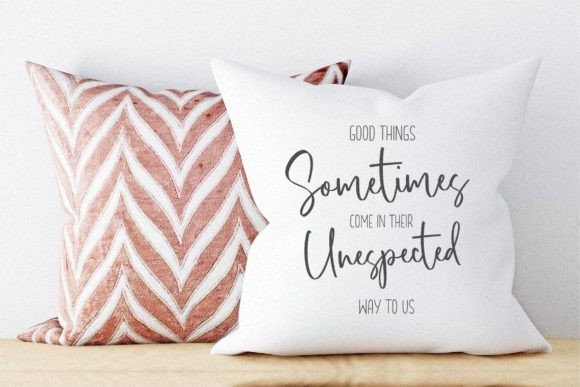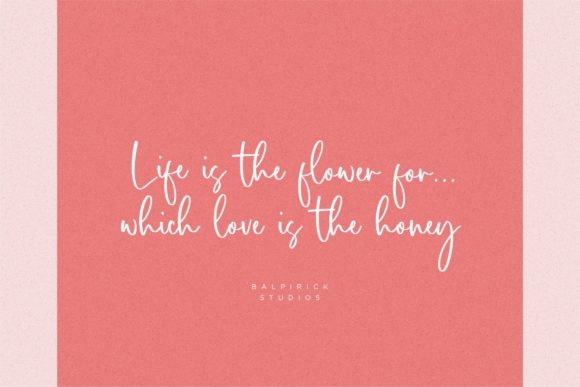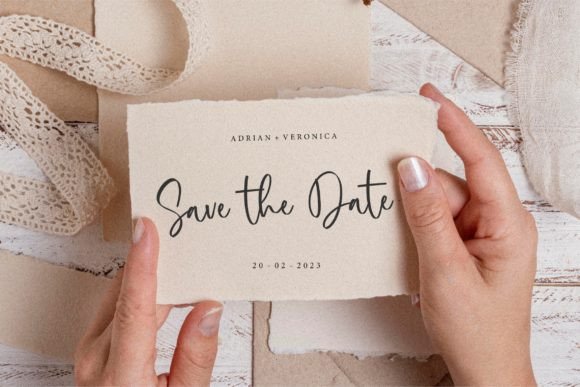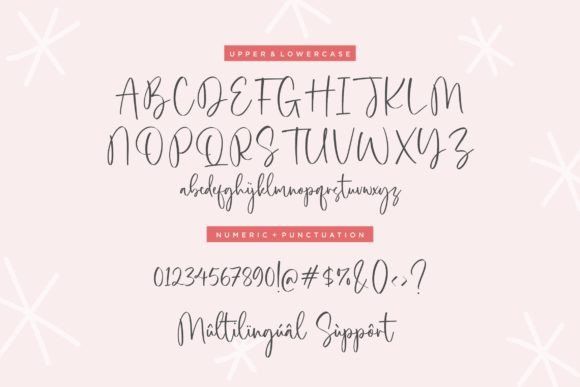
Discovering the Perfect Font for Every Occasion
Have you ever stumbled upon a beautiful handwritten font while browsing through design resources, and suddenly, a creative idea pops into your head? You can almost envision the perfect project – a wedding invitation, a birthday card, or a heartfelt letter – all thanks to the elegance and charm of that one special font.
That’s exactly what happens when you come across the Crimson Bouquet Font, an exquisite and delicate handwritten font designed to capture the essence of sweetness and refinement. Whether you’re a seasoned designer or a crafty enthusiast, this font is sure to become your go-to choice for any occasion.
As a designer, you understand the importance of having a versatile font that can elevate your projects and make them truly special. The Crimson Bouquet Font is a valuable addition to your design toolkit, offering a unique and elegant touch that’s sure to impress.
Crimson Bouquet Font Key Features
- Font Family: Crimson Bouquet
- Character Count: 1024 characters (including uppercase and lowercase letters, numbers, and punctuation)
- Unique Characteristics: Elegant and luxurious design, perfect for wedding invitations, greeting cards, and other special occasions
Crimson Bouquet Font Review
I recently had the chance to work with the Crimson Bouquet font, and I must say, it’s a unique and elegant addition to any design project. Here’s my honest take on this beautiful font.
- The font’s intricate design and subtle flair make it perfect for adding a touch of sophistication to your designs.
- The font’s high x-height and compact letterspacing make it easy to read, even in smaller font sizes.
- The font’s versatility makes it suitable for a wide range of projects, from wedding invitations to luxury branding.
- The font’s ornate design may not be suitable for projects that require a more minimalist or modern aesthetic.
- The font’s compact letterspacing may not be ideal for projects that require a lot of text, as it can make the text appear crowded.
Overall, I think the Crimson Bouquet font is a great addition to any designer’s toolkit. While it may have some limitations, its unique design and versatility make it a great choice for a wide range of projects. With some careful consideration of its limitations, I think this font has the potential to elevate your designs to the next level.
Tips for Getting the Most Out of Crimson Bouquet Font
For the best results, use the font in conjunction with elegant graphics and colors. Experiment with different font sizes, colors, and styles to create a unique look. You can also pair the font with other elegant fonts to create a sophisticated design.
Crimson Bouquet font is perfect for:
- Formal event invitations and announcements
- High-end branding and marketing materials
- Special occasion graphics and designs
Alternatives to Crimson Bouquet Font
The Crimson Bouquet Font is a beautiful, elegant script font, but sometimes it may not be the perfect fit for a design. Here are some alternatives that designers can consider:
Carolyna Pro is a elegant, modern script font that is perfect for creating a luxurious and sophisticated look. It has a more refined and delicate feel compared to Crimson Bouquet Font, making it ideal for high-end branding and packaging designs. Use Carolyna Pro when you want to convey a sense of elegance and refinement.